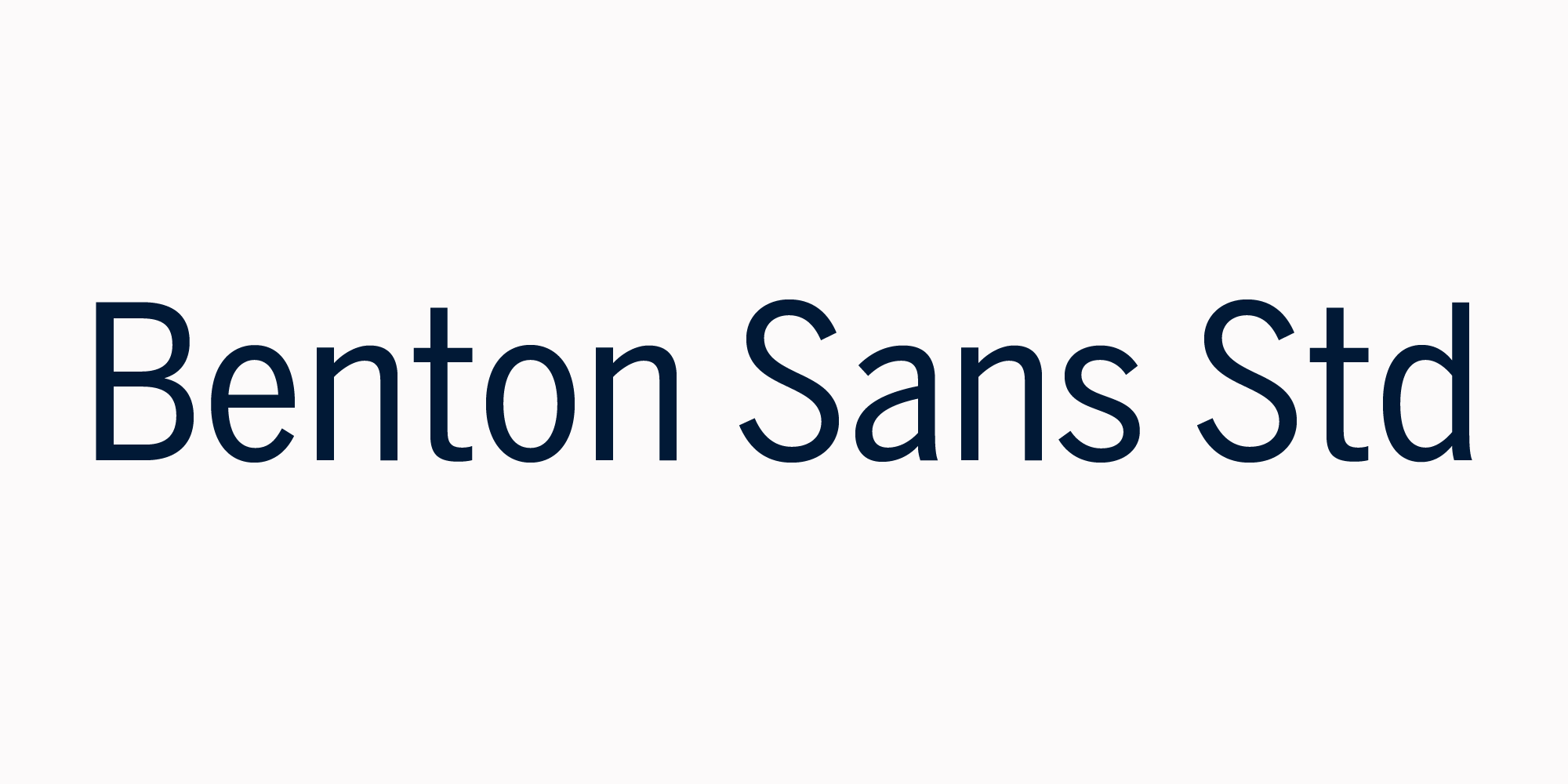
Benton Sans Std Font is perfect for corporate branding, professional presentations, newspaper headlines, magazine layouts, government documents, institutional communications, business reports, editorial designs, public signage systems, and contemporary marketing materials. This versatile sans-serif typeface brings journalistic authority and corporate reliability to professional design applications.
What makes Benton Sans Std Font so exciting is its exceptional fusion of American newspaper heritage with contemporary corporate design standards that creates an instantly recognizable voice of authority and trustworthiness. The font features carefully balanced letterforms with subtle humanistic qualities and refined proportions that ensure superior readability across all media while maintaining the professional credibility demanded by news organizations and corporate environments. Its distinctive characteristics include optimized character spacing, consistent stroke weights, and sophisticated geometric construction that reflect decades of typographic expertise in journalism and corporate communication. The font's proven performance in high-stakes publishing environments and corporate applications makes Benton Sans Std Font the definitive choice for organizations requiring typography that projects competence, reliability, and uncompromising professional standards.
The Benton Sans Std Font family includes comprehensive weights and styles: Light, Regular, Medium, Bold, and Black variations, each available in Roman and Italic cuts. The extensive character set encompasses complete Latin alphabet support with journalistic symbols, corporate punctuation marks, mathematical operators, currency symbols, and broad international language coverage including Central European characters. Professional features include contextual alternates optimized for news and corporate applications, optical adjustments for different reading environments, expert spacing for both headlines and text, and refined character construction that ensures consistent performance across print and digital media platforms.
Whether you're creating corporate communications, news publications, or professional brand materials, Benton Sans Std Font Free Download provides the authoritative typography that establishes credibility and trust in competitive professional environments. Its exceptional versatility makes it suitable for both large-scale corporate branding and detailed editorial applications, while its journalistic heritage ensures authentic presentation that resonates with professional audiences. The font's combination of newspaper authority and corporate sophistication makes it indispensable for news organizations, corporations, government agencies, and professional service providers seeking typography that communicates reliability, expertise, and the unwavering commitment to accuracy and professionalism that defines excellence in journalism and corporate communication standards.